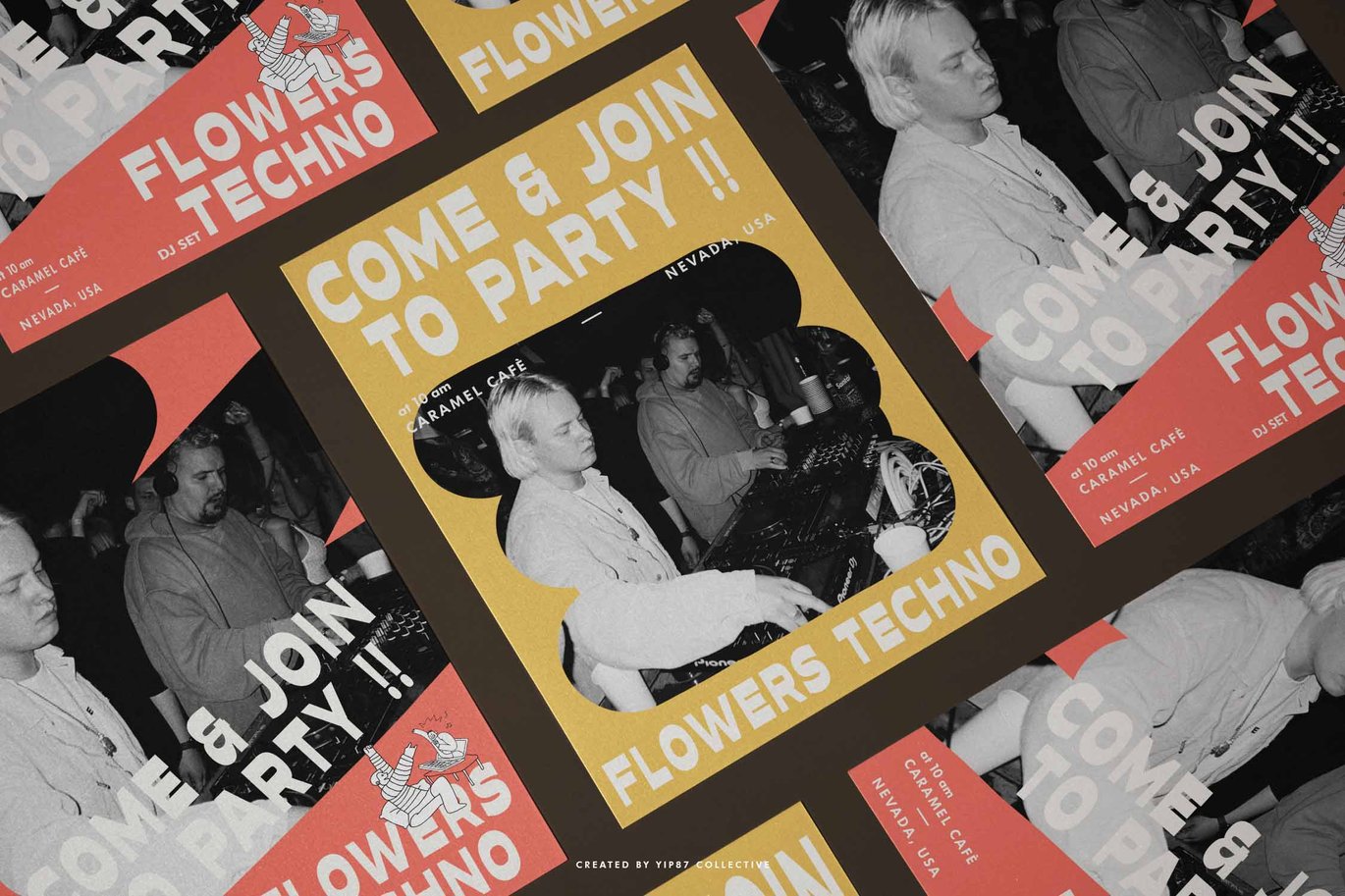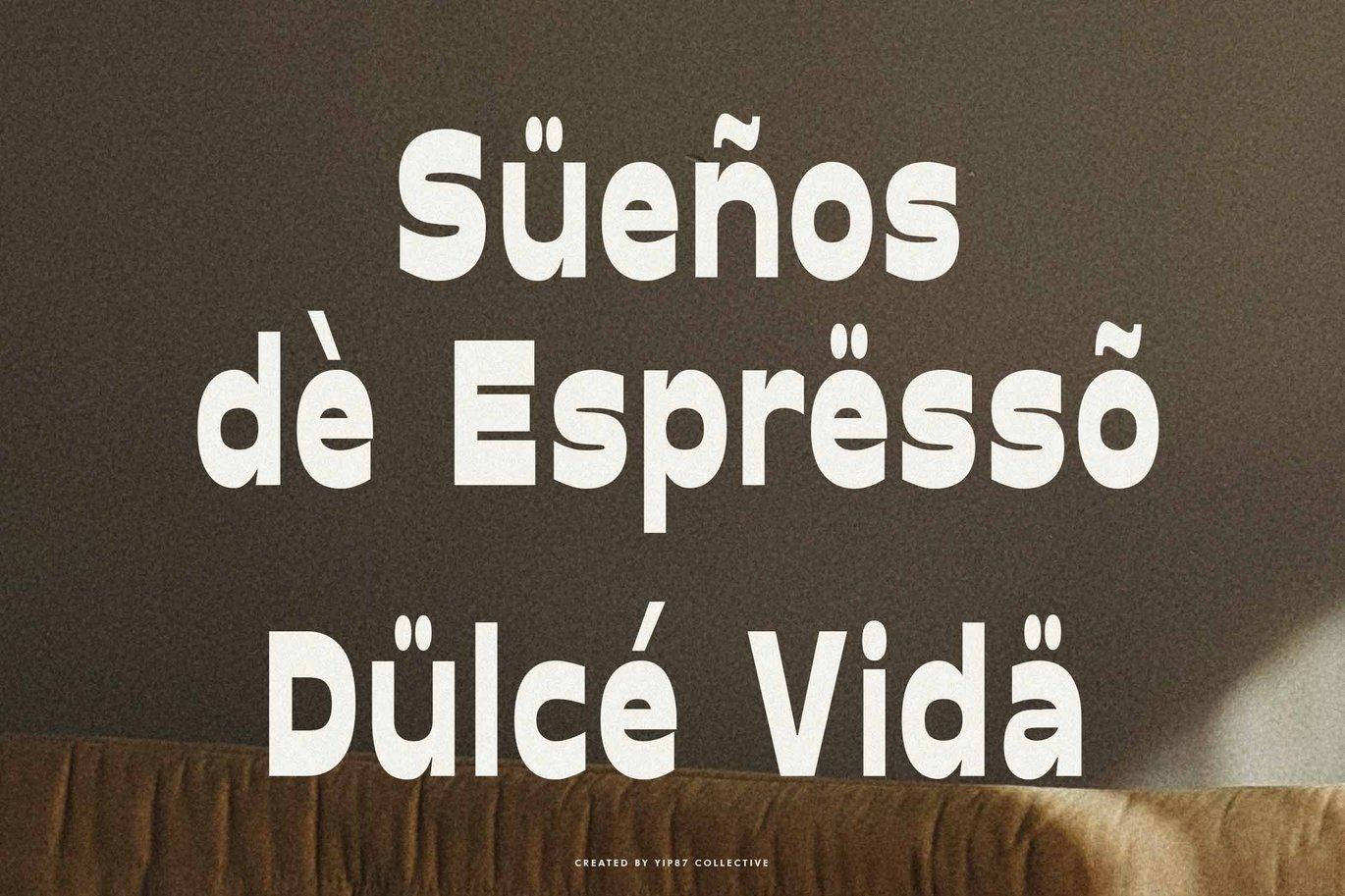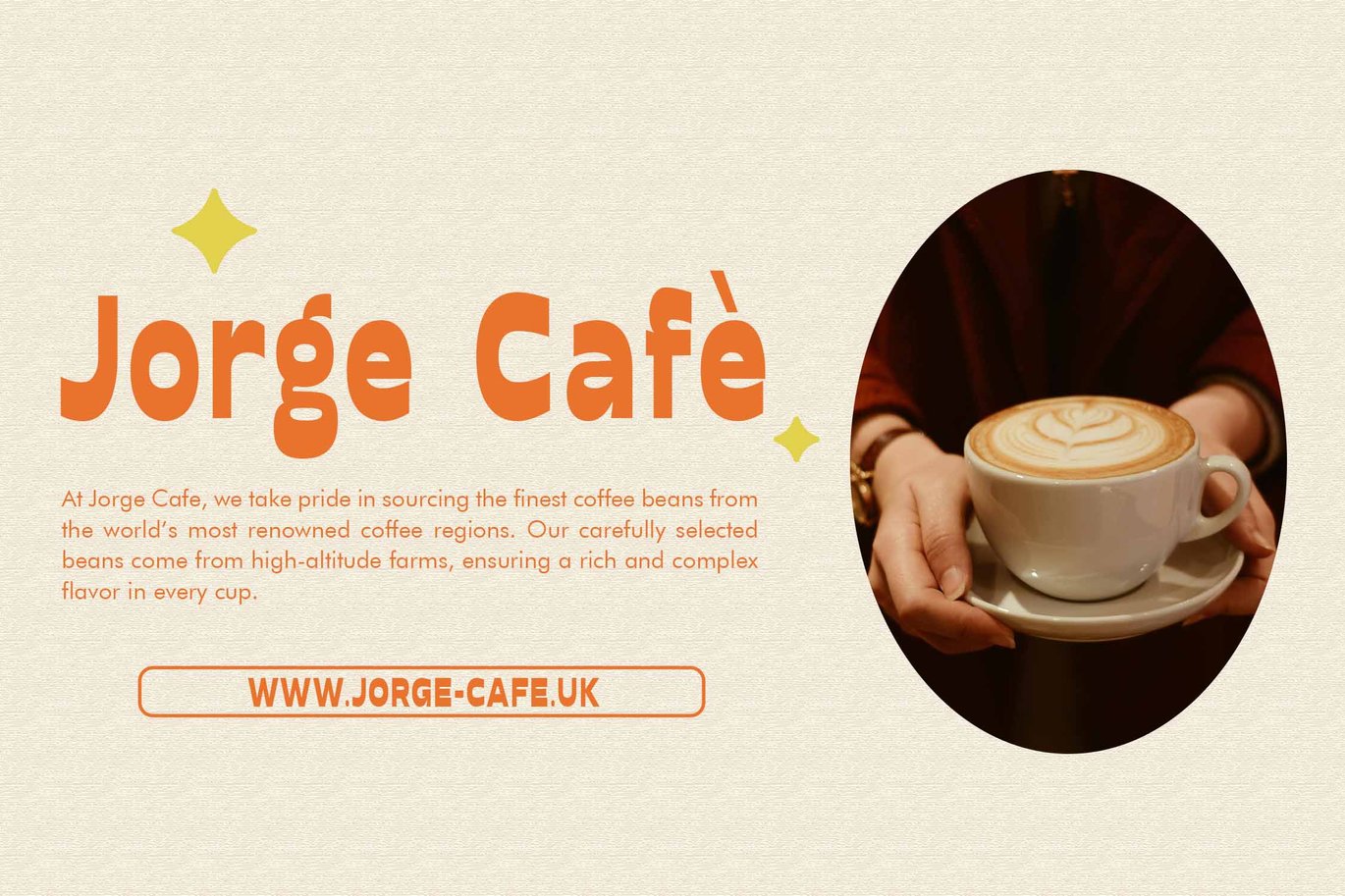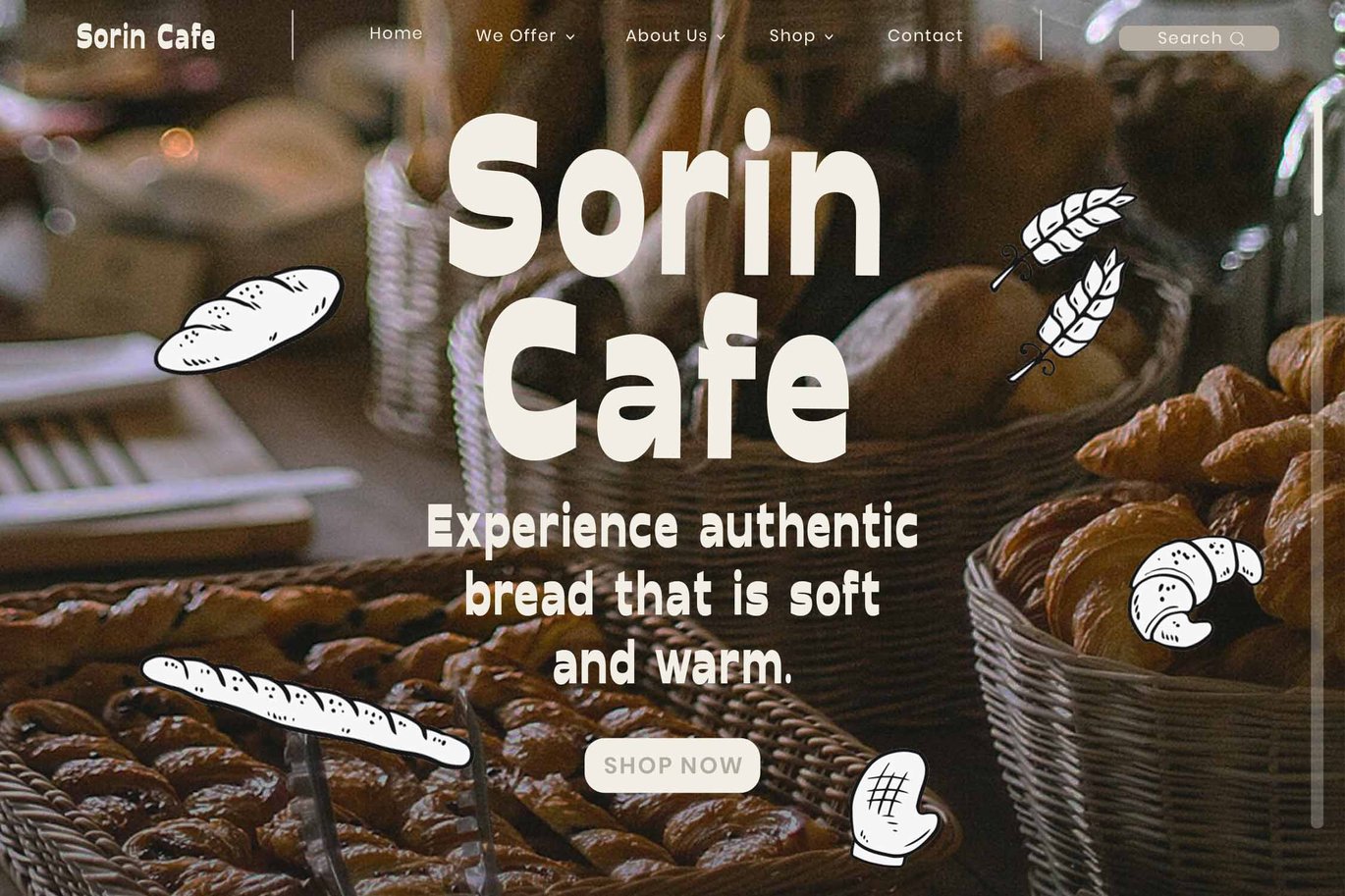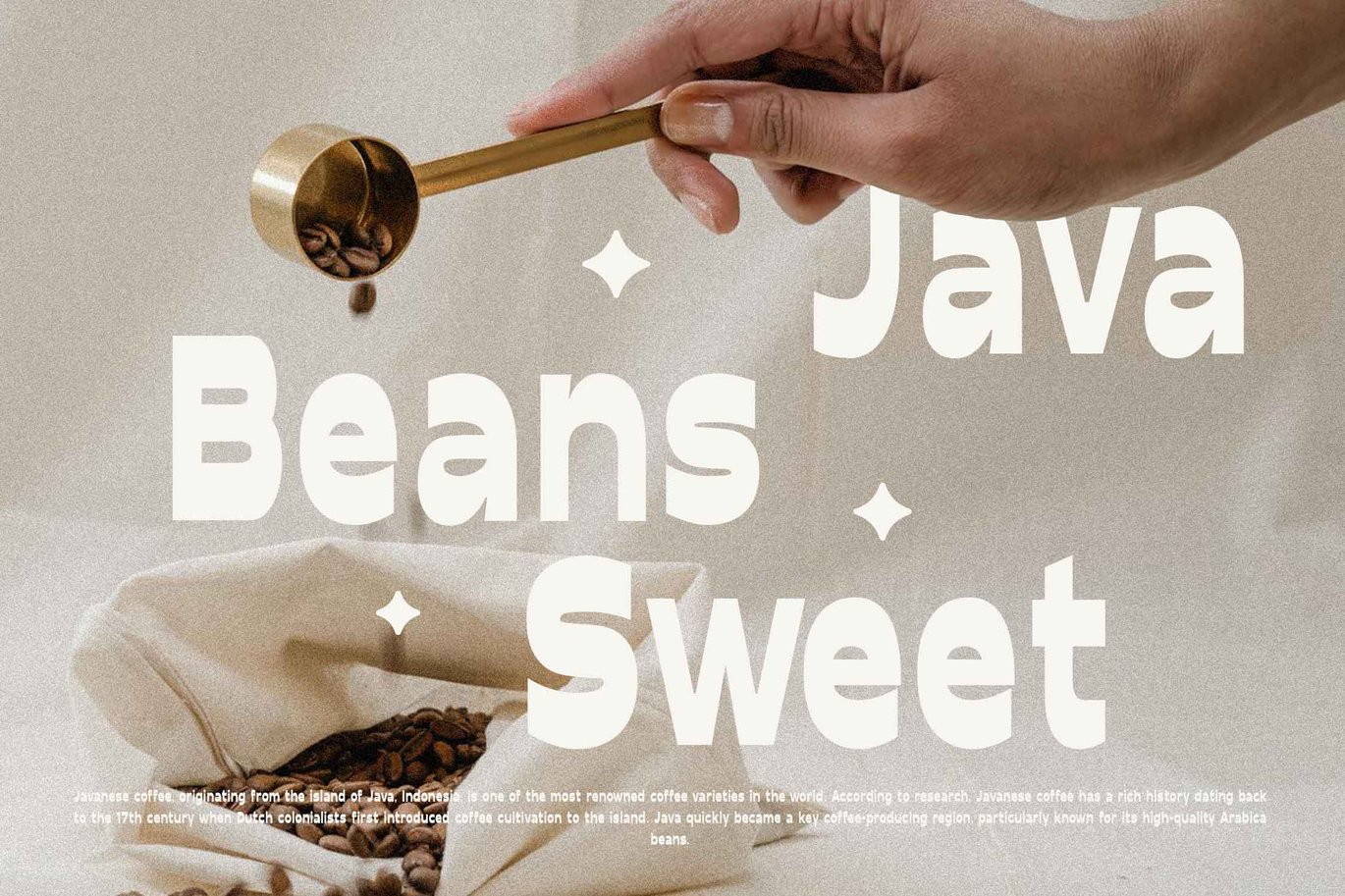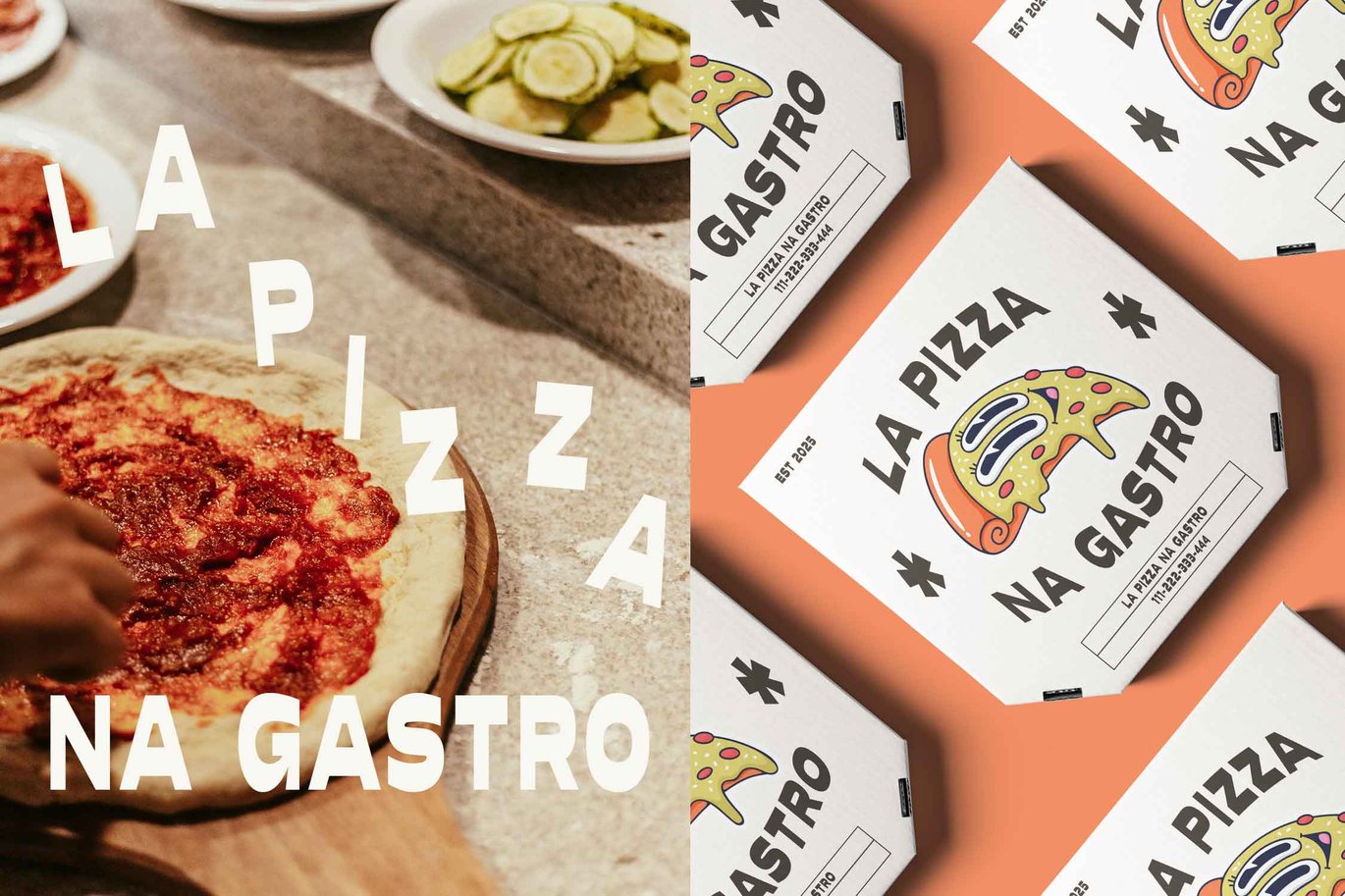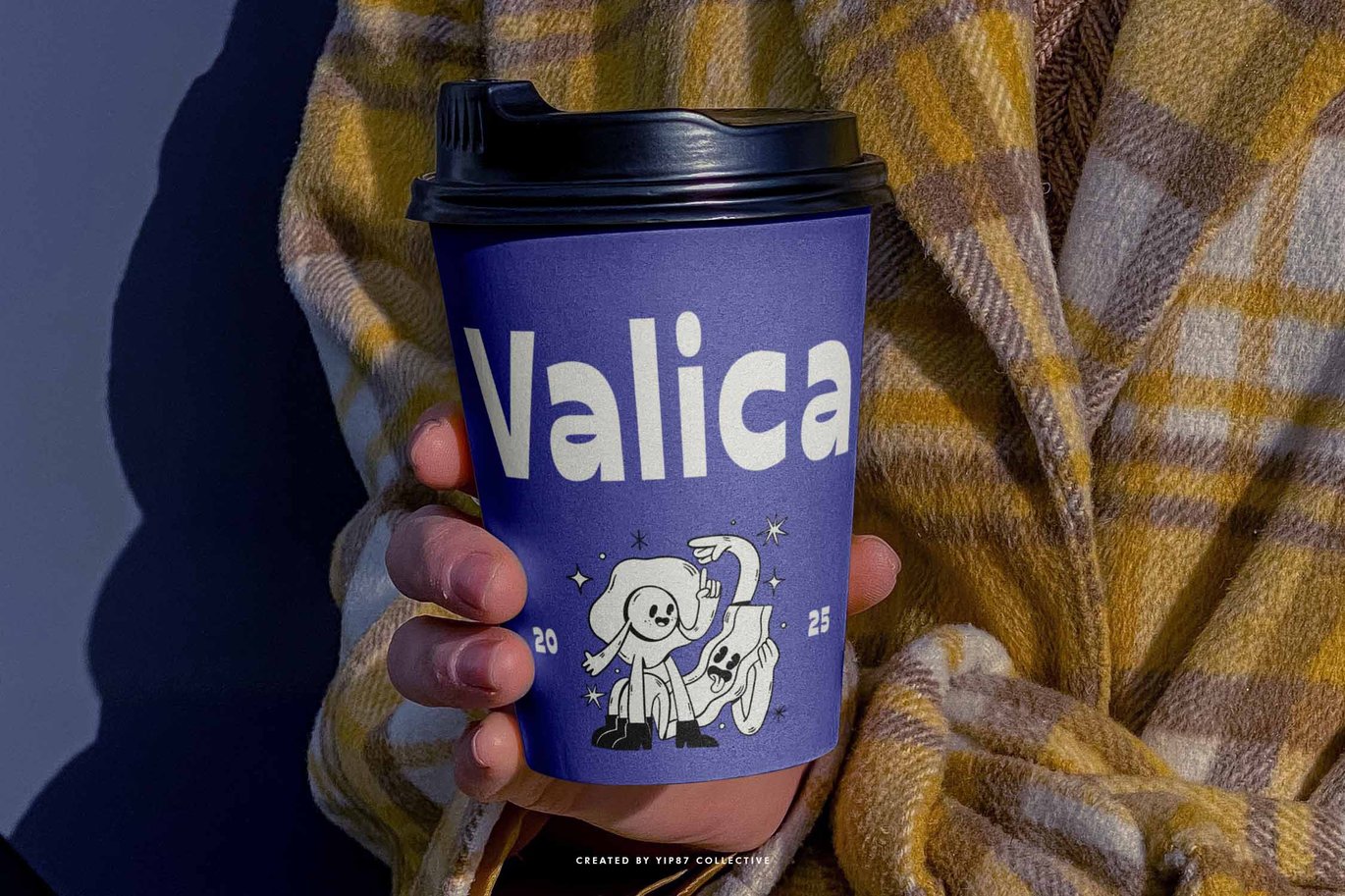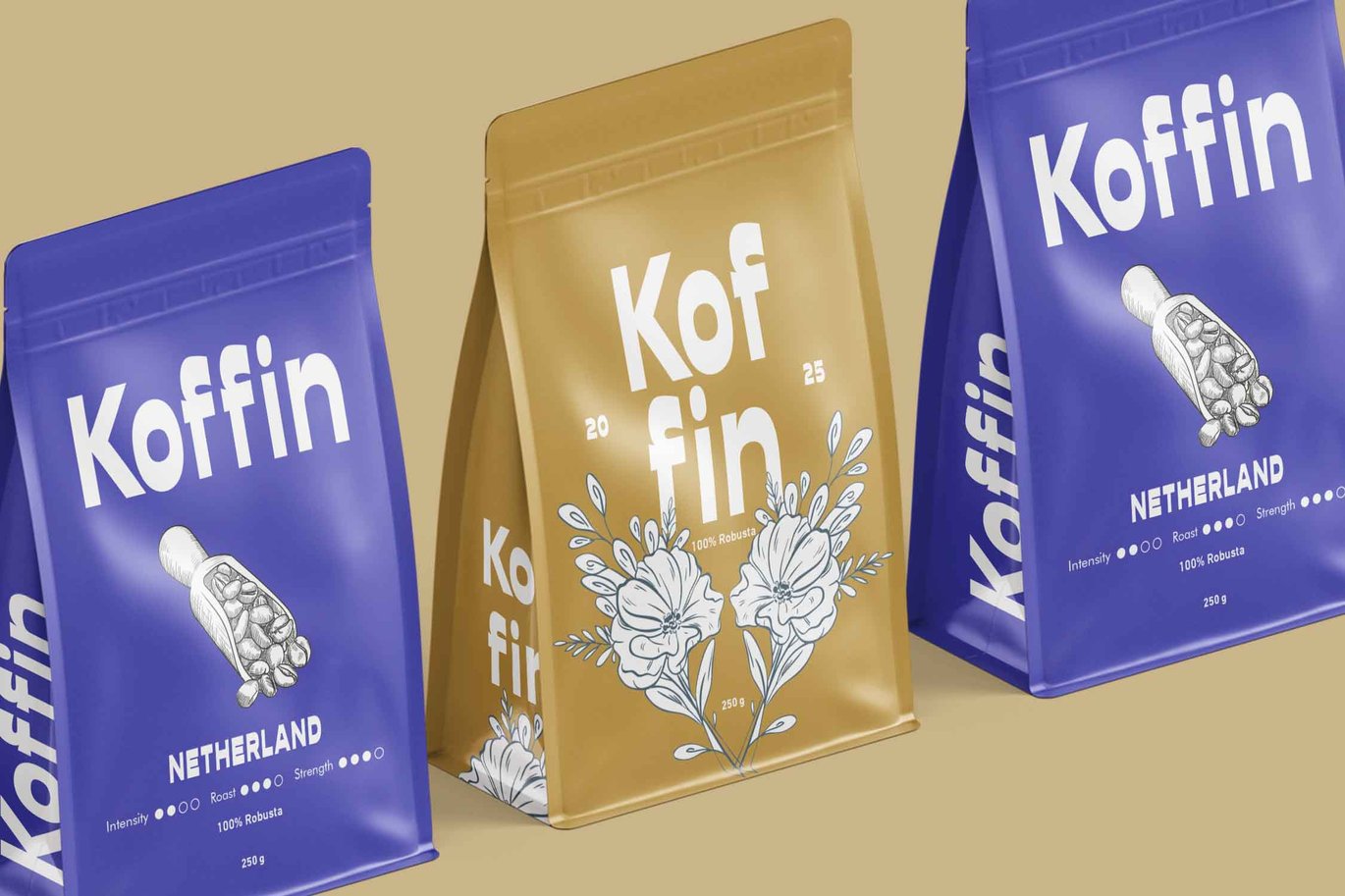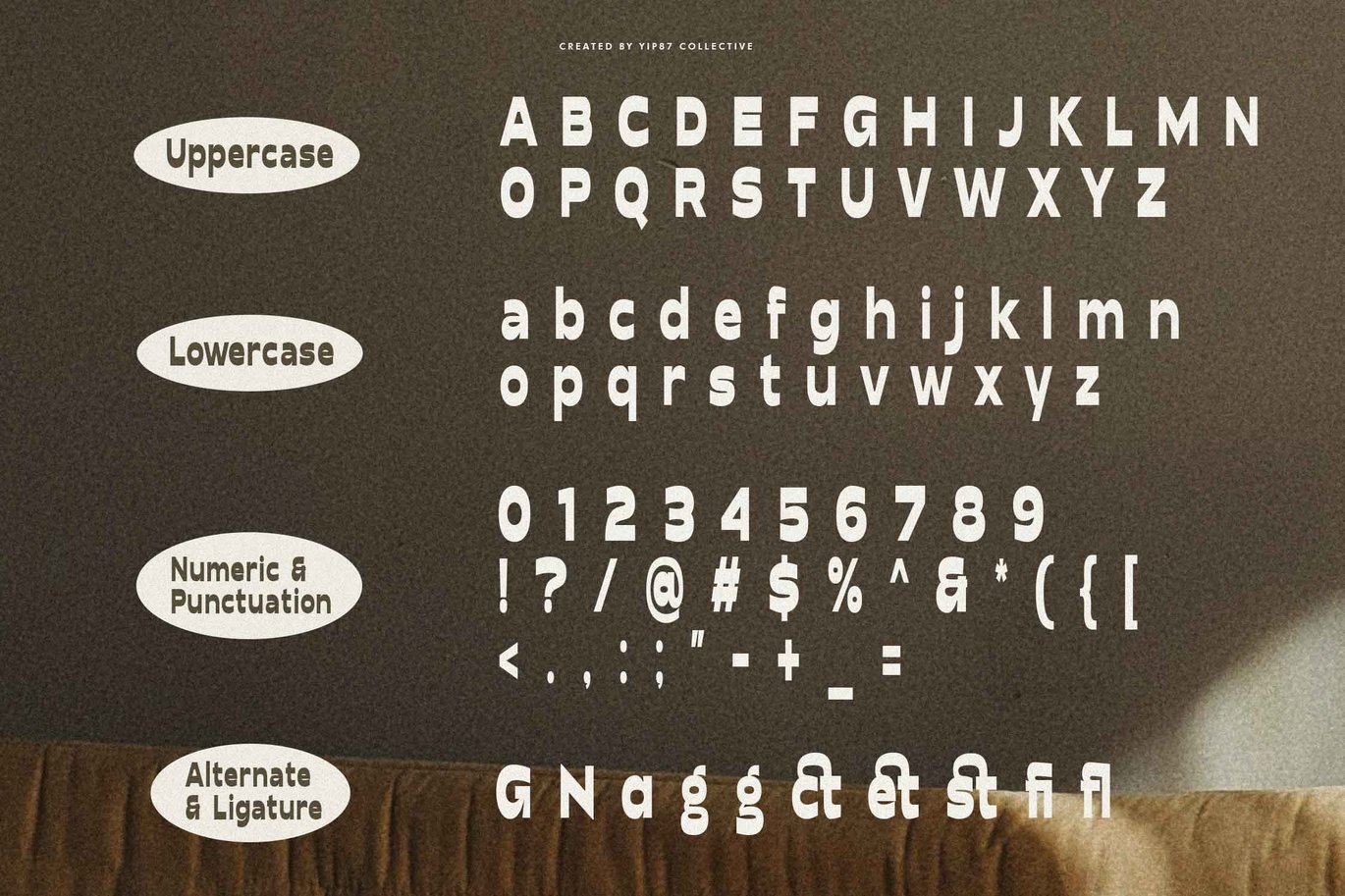
Bazcofe – Retro Reverse Sans – Cafe Brand Font
Bazcofe – Retro Reverse Bold Sans – 80s Display Font – Cafe and Retro Logo Branding Font
Bazcofe is a bold reverse sans retro display font. This font radiates energy and style, making it ideal for projects that require a retro, bold, and dynamic aesthetic, such as branding, arcade gaming titles, retro posters and branding, digital artwork, music album covers, logos, and anymore. Whether you’re aiming for a retro touch or a futuristic edge, this font brings versatility and boldness to your projects. It’s perfect for creating impactful, futuristic, and memorable designs.